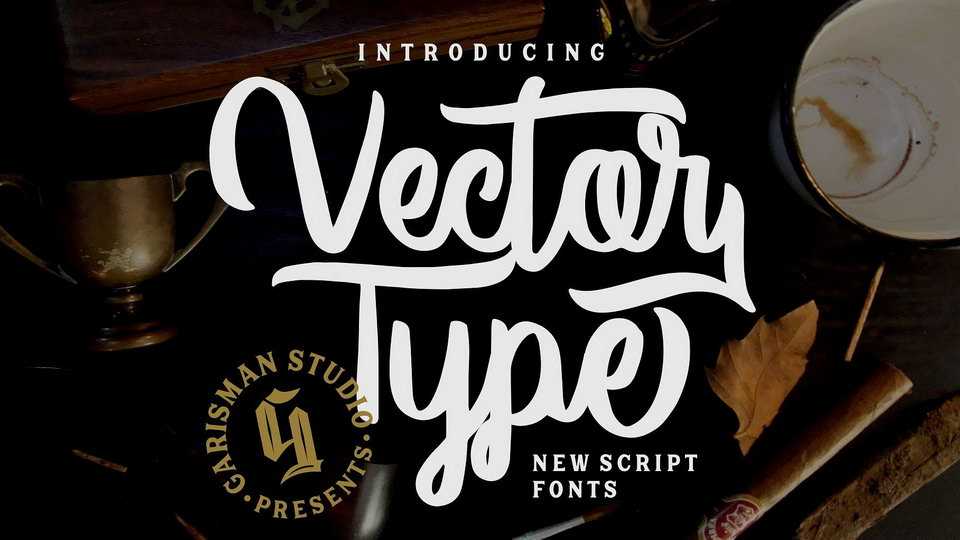
Download Vector Type font, an attractive hand letterd brush script with vintage feel. Very suitable for design t-shirts, branding projects, wedding designs, social media posts, advertisements and more.
Designer: Garisman Studio